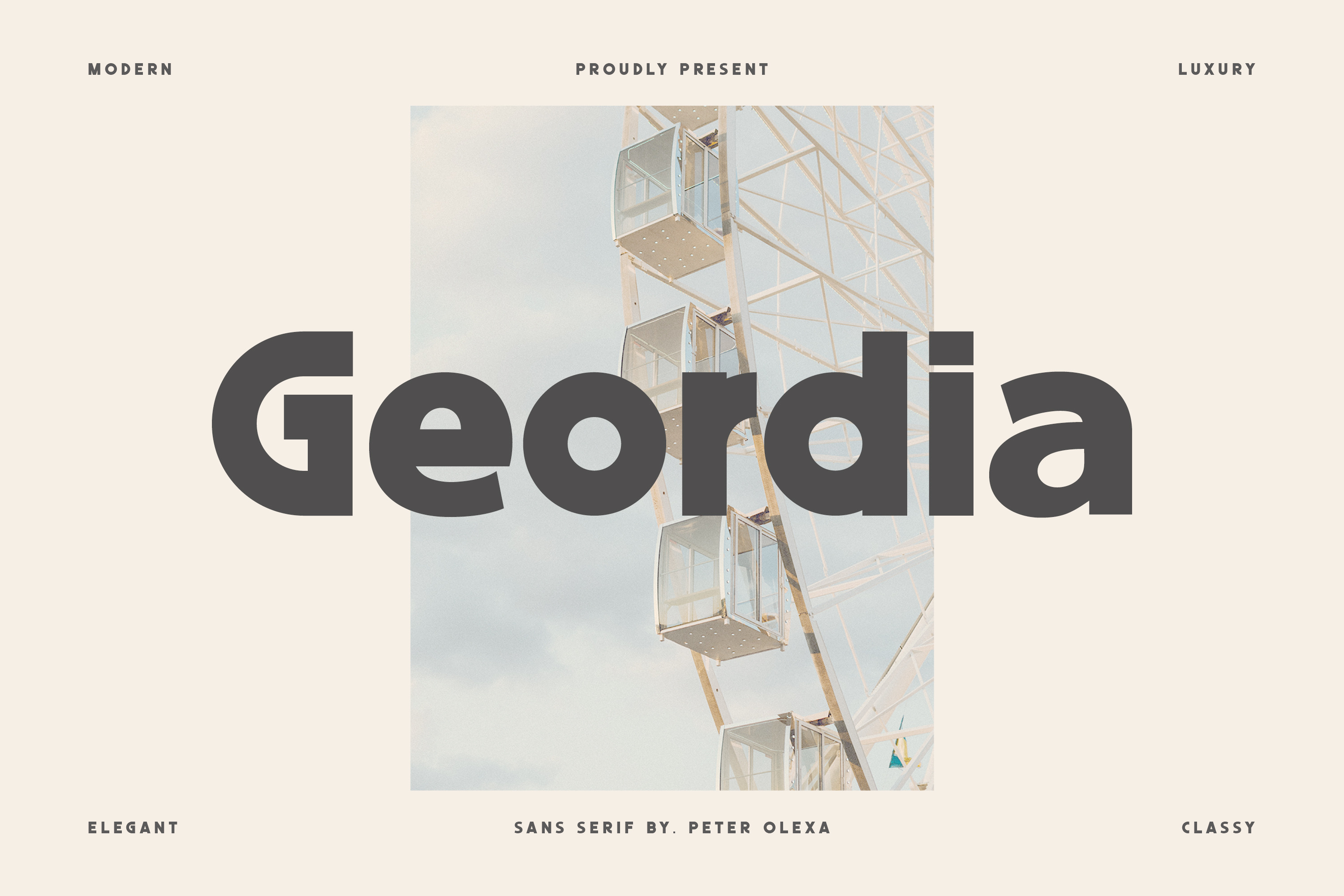
Geordia - Modern Sans Font
Creative, modern, bold & simple sans font for your new projects. With clean, sharp or geometric style & multilingual support. Great for fashion or modern branding projects.
- Great for modern & trendy branding projects